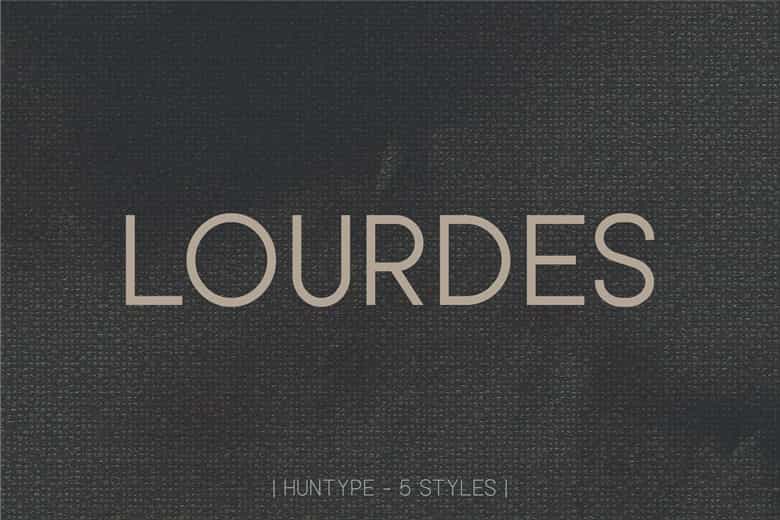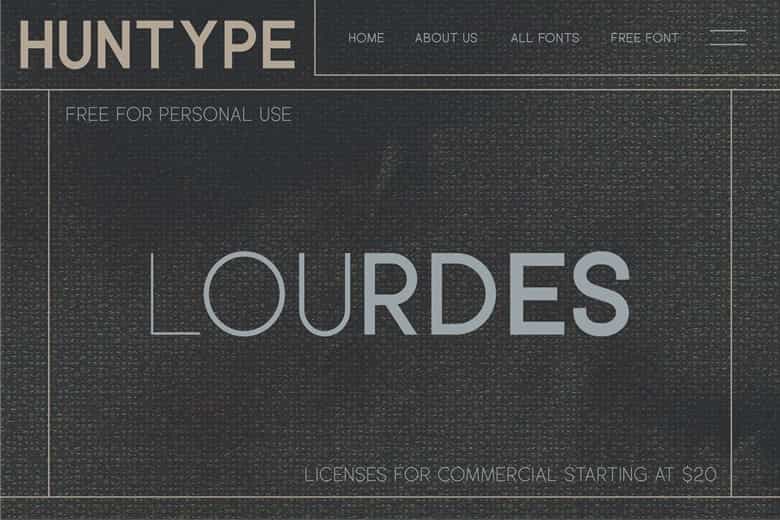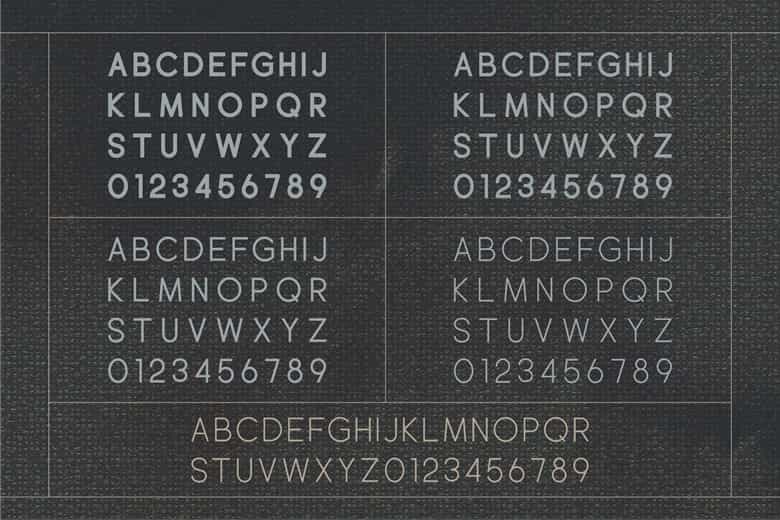
Discover Lourdes Font, part of the Sans Serif collection—a versatile and unique font perfect for adding a personal touch to your projects. Download it for free and enjoy crafting designs with style, from invitations to social media posts. This font is available exclusively for personal use, giving you the freedom to create without limits. Unlock your creativity with Lourdes Font today!
Lourdes Sans Serif Font Family as a truly modern and unique font asset that is suitable for any project. The given font is Anti-Malties and it comes in five styles: Thin, Light, Regular, Bold, and Black. Lourdes is perfect for creative professionals, as it provides a great number of opportunities for creating different works.